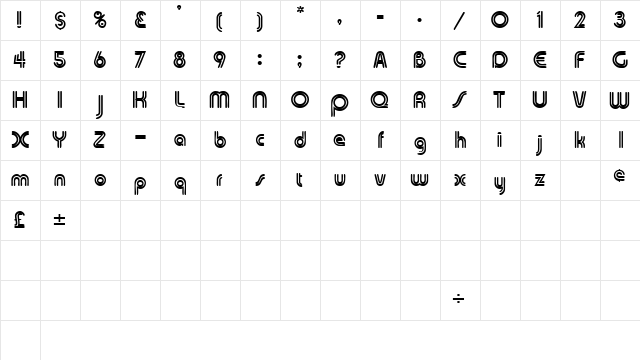
TwinkieDisplaySSK Regular Font Preview
TwinkieDisplaySSK Regular
Design Context for TwinkieDisplaySSK Typeface
TwinkieDisplaySSK is built around its visual character rather than neutral utility — its distinctive forms are designed to make an impression at display sizes.
Font Pairing: Pair with a clean neutral sans-serif for body copy to let TwinkieDisplaySSK's character lead without overwhelming the composition.
Pro Tip: Treat TwinkieDisplaySSK as the centrepiece of your typographic hierarchy. One strong heading set in a decorative face can carry an entire layout.